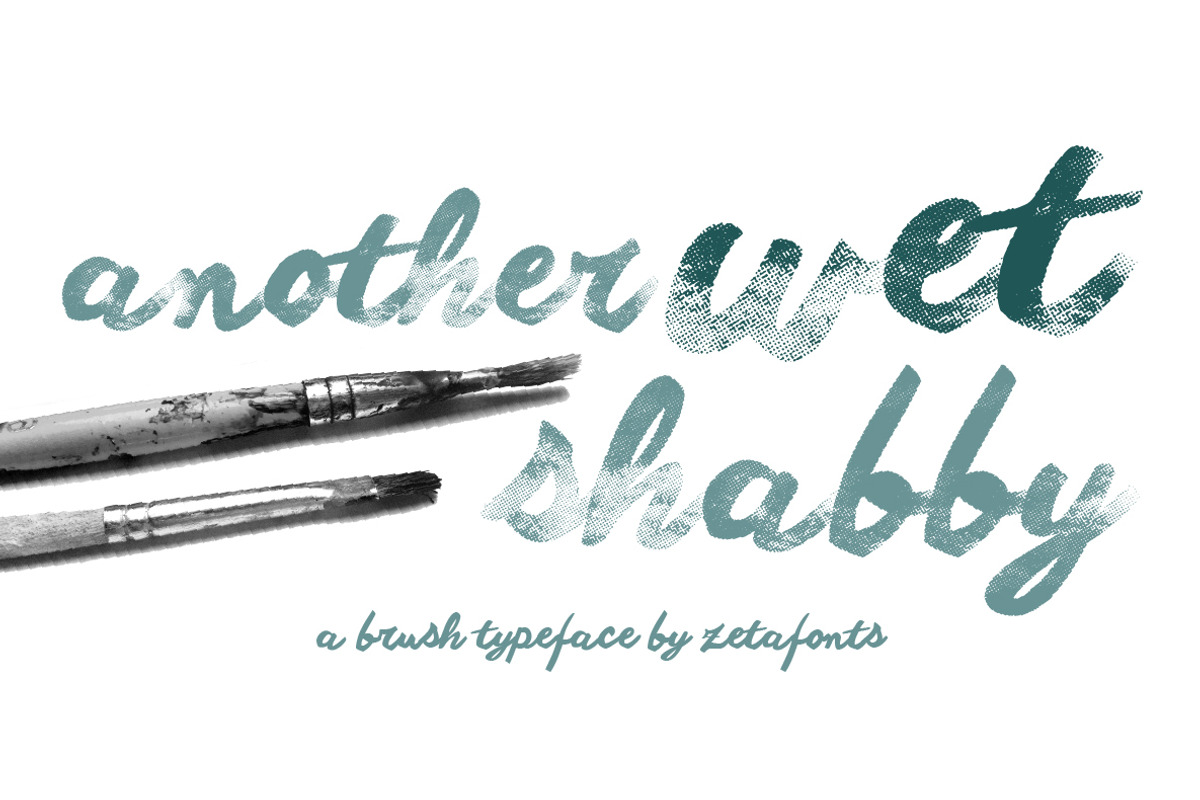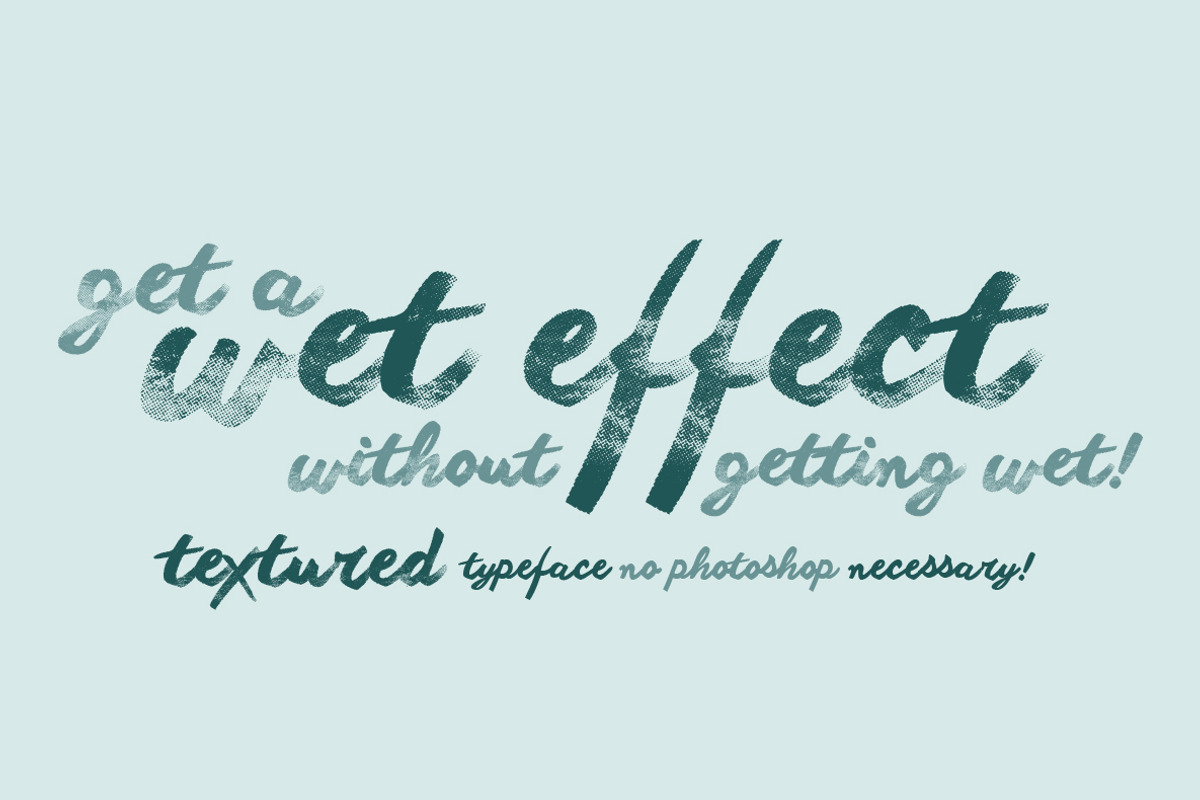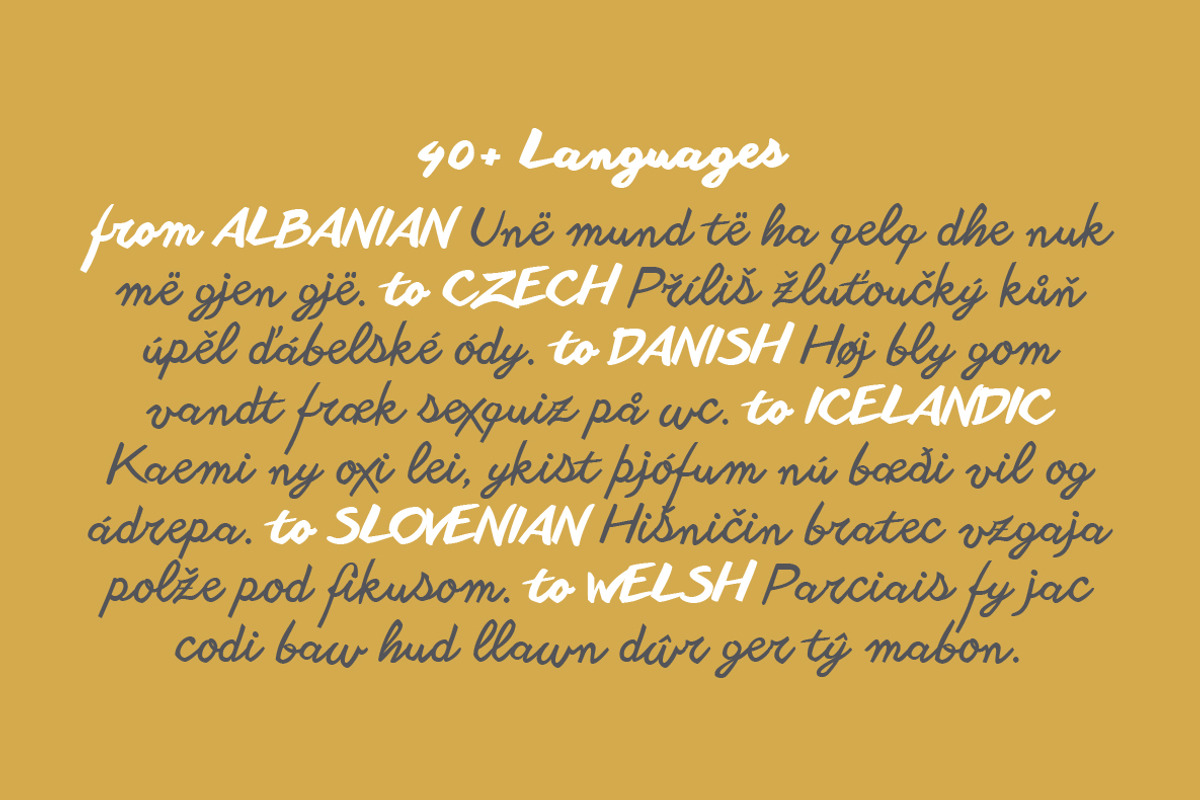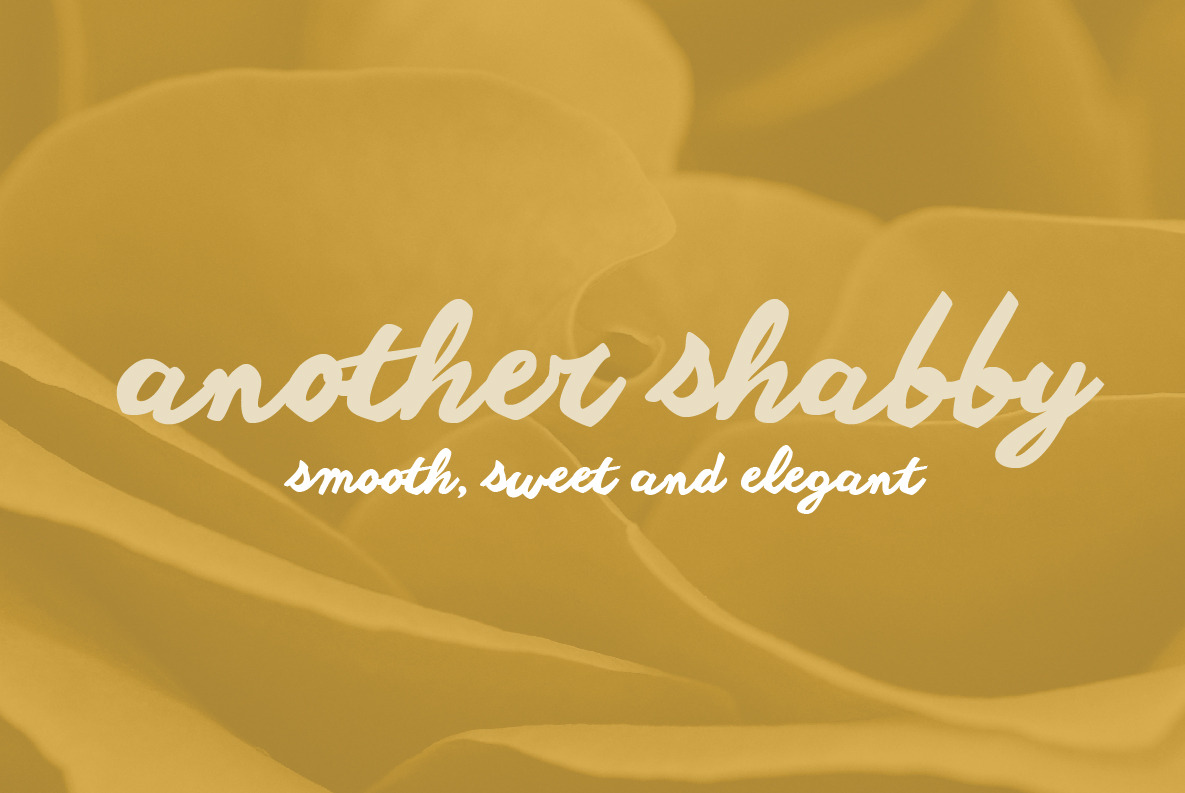
Another Shabby - 5 fonts
Another Shabby is a script typeface family designed by Francesco Canovaro for Zetanfonts. Its shapes are defined by rough, wide brushstrokes, slightly rounded in corners to mimic the feel of a real handwritten casual script. Another Wet Shabby covers over 40 languages that use the Latin, Greek and Cyrillic alphabet, with a full range of accents and diacritics. The full family comes in four weights.
The Wet version (only with latin alphabet!) allows you to create watercolor-textured and multilayered color images without having to resort to photo-retouch software.